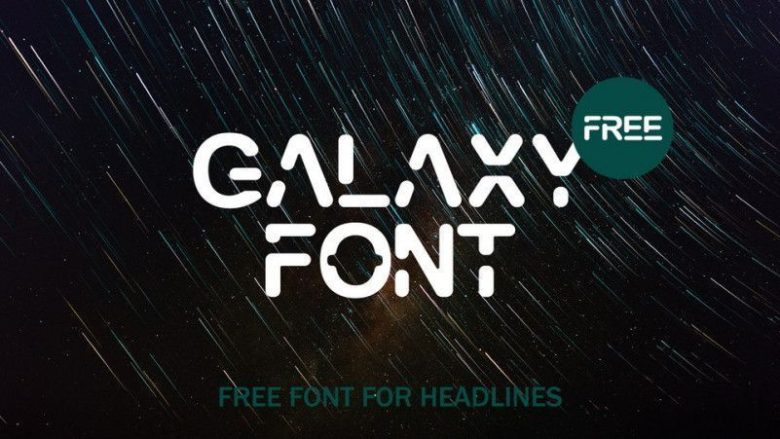
GALAXY Free Font
Galaxy is a creative display font with a futuristic look. It’s great for headlines, posters, bannners, ads and more. The font contains all caps letters, numbers and symbols.